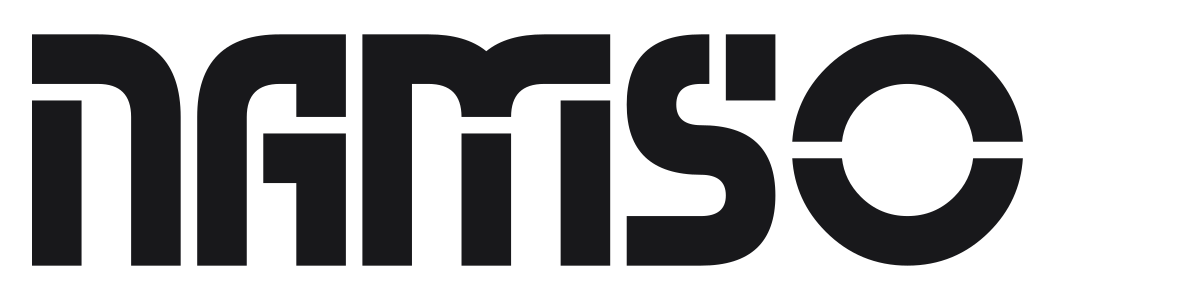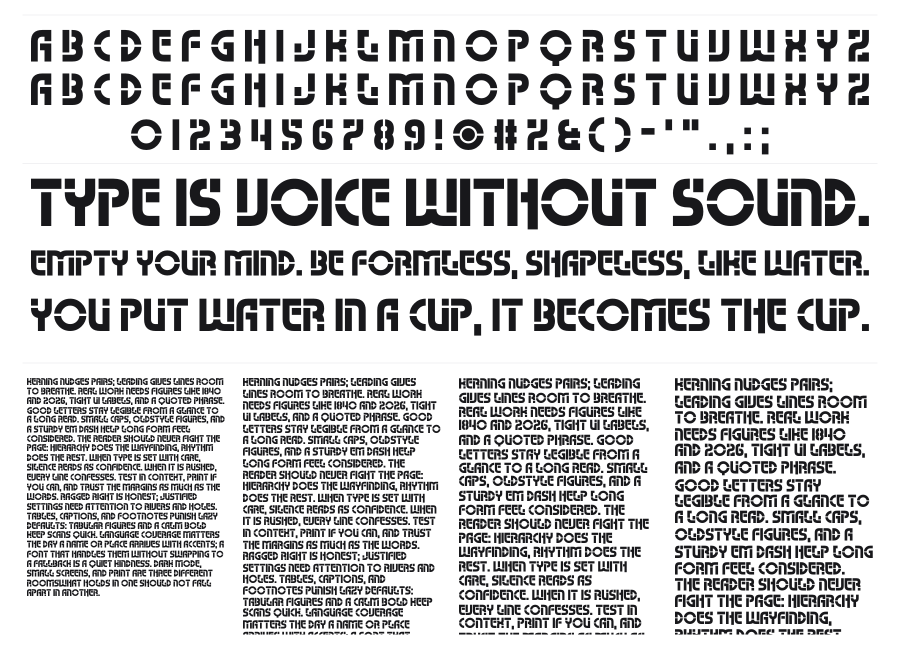
Namso
Namso is a bold geometric stencil face from Chequered Ink with a heavy, modular construction and deliberate cut gaps at stroke junctions. The wide, squat proportions and uniform stroke weight give it a commanding industrial presence somewhere between military signage and sci-fi UI. It hits hard at large sizes.